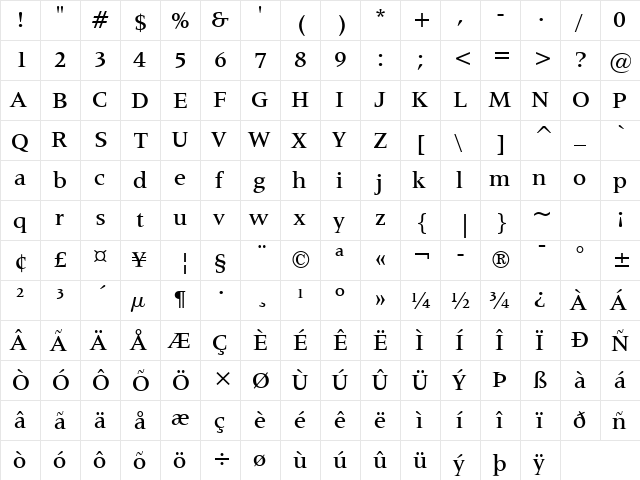
Latin725 Md BT Medium Font Preview
Latin725 Md BT Medium
Design Context for Latin725 Md BT Typeface
Latin725 Md BT takes a measured approach to typography — its balanced proportions and neutral character make it a reliable workhorse for both digital and print work.